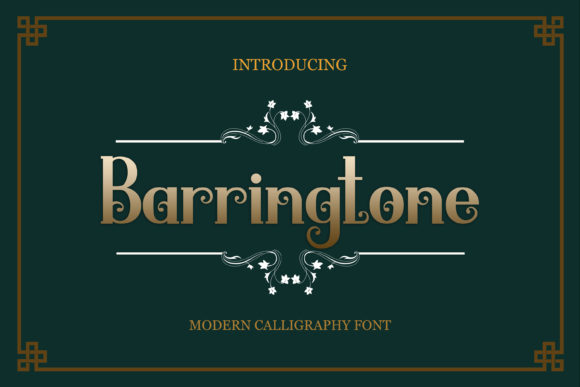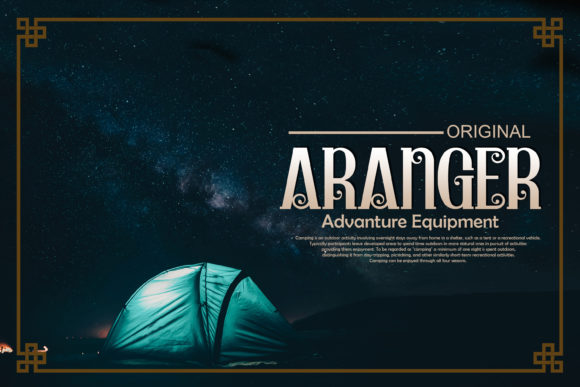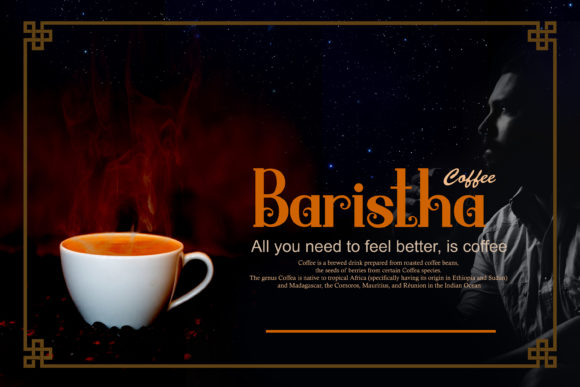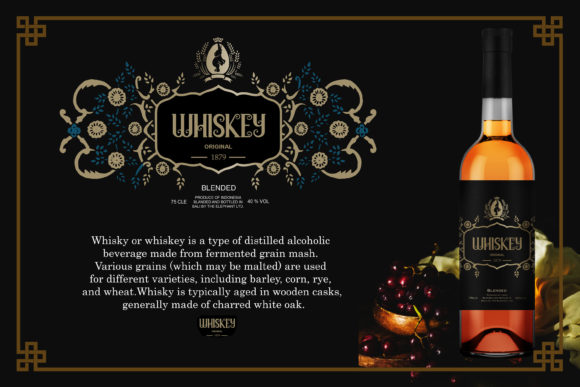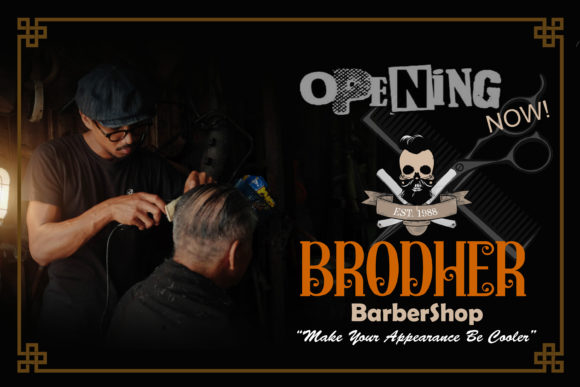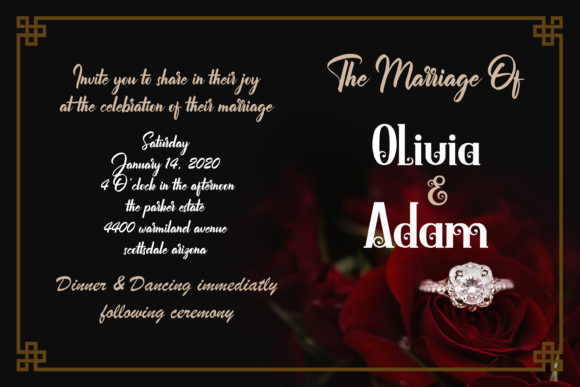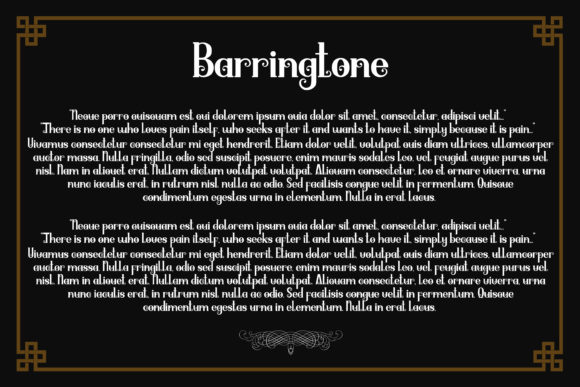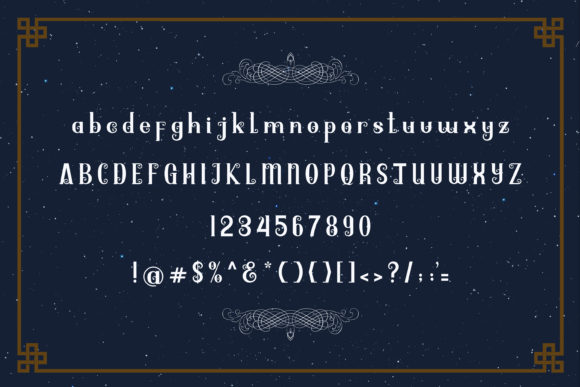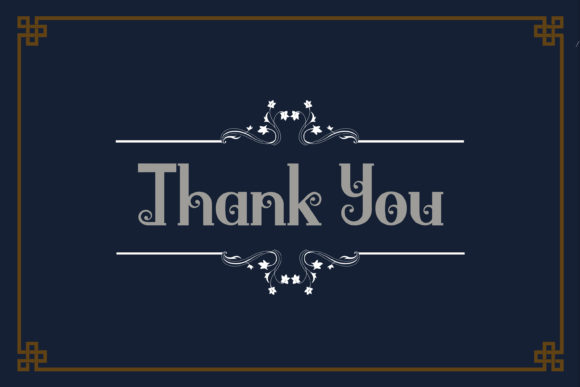
HomeScript FontsBarringtone Font Script Fonts Barringtone Font FacebookXPinterestWhatsApp Barringtone Font Poster 2 Barringtone Font Poster 3 Barringtone Font Poster 4 Barringtone Font Poster 5 Barringtone Font Poster 6 Barringtone Font Poster 7 Barringtone Font Poster 8 Barringtone Font Poster 9 About Barringtone Font Barringtone is a modern calligraphy font. Get inspired by its contemporary coolness! DOWNLOAD ON CREATIVE FABRICAThis font is sold and delivered by Creative Fabrica. Font Canyon may earn a commission if you buy through this link. People also explored Rattu Aqilla Font Dove Egg Monogram Font Snow Winter Font Angel Baby Font Crackers Font Neon Blue Gildan 5000 T Shirt Mockup Black Hearts Font Uniqueen Thin Font Bumper Sticker 354 0 TagsBarringtone Font Previous articleSattiers Signature FontNext articleThifa Font LEAVE A REPLY Cancel reply Comment: Please enter your comment! Name:* Please enter your name here Email:* You have entered an incorrect email address! Please enter your email address here Website: Save my name, email, and website in this browser for the next time I comment. Personal Use Free Zeshane Personal Use Free Read more about this font Rozalyn Personal Use Free Read more about this font Penelope Brush Script Font Personal Use Free Read more about this font Adrenaline Personal Use Free Read more about this font BLOG How to Cut Any Font on Cricut: Convert a Font to SVG (Free) Turn any font into a clean SVG so it cuts crisp on Cricut - a quick 3-step workflow using a free font-to-SVG tool. Best Fonts for YouTube Videos: Make Your Thumbnails Stand Out Free Fonts Risk: Why Free Fonts Can Be Dangerous for Designers To increase your work productivity, choose the most readable fonts.